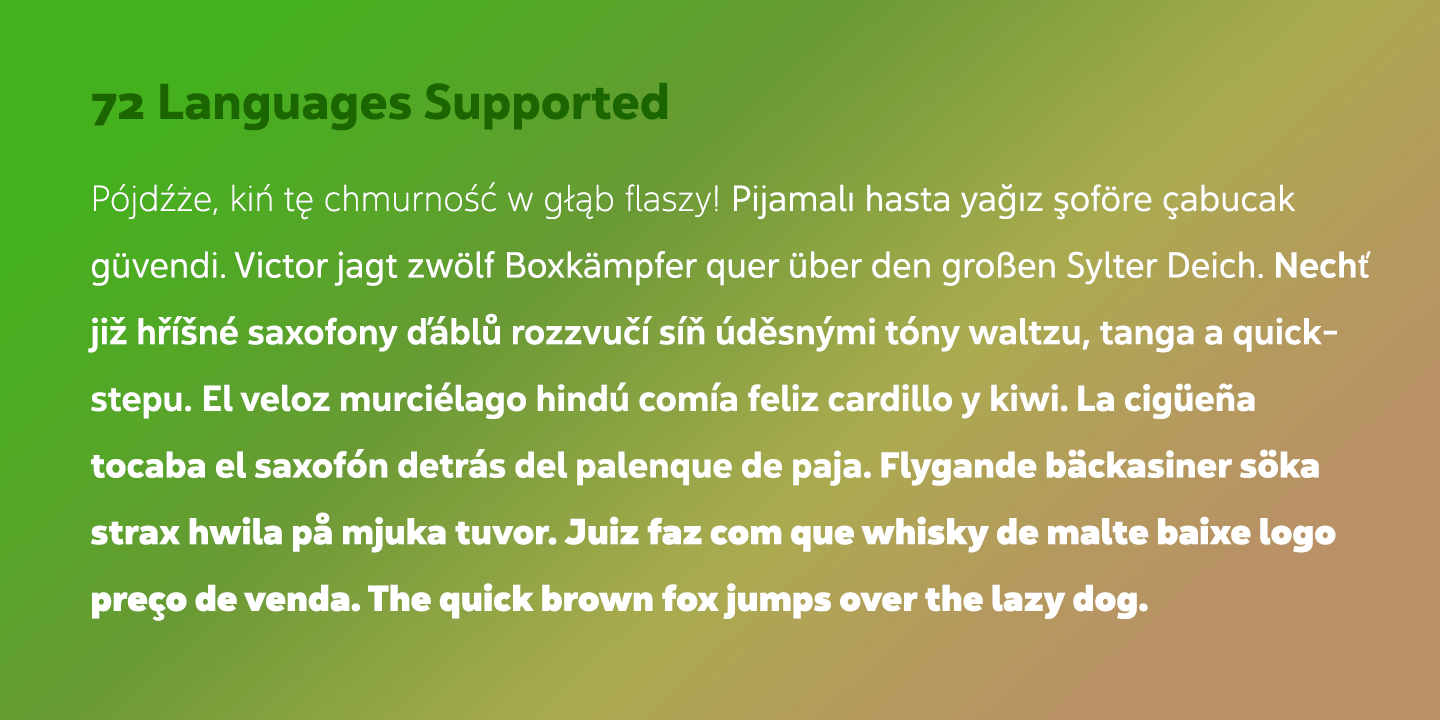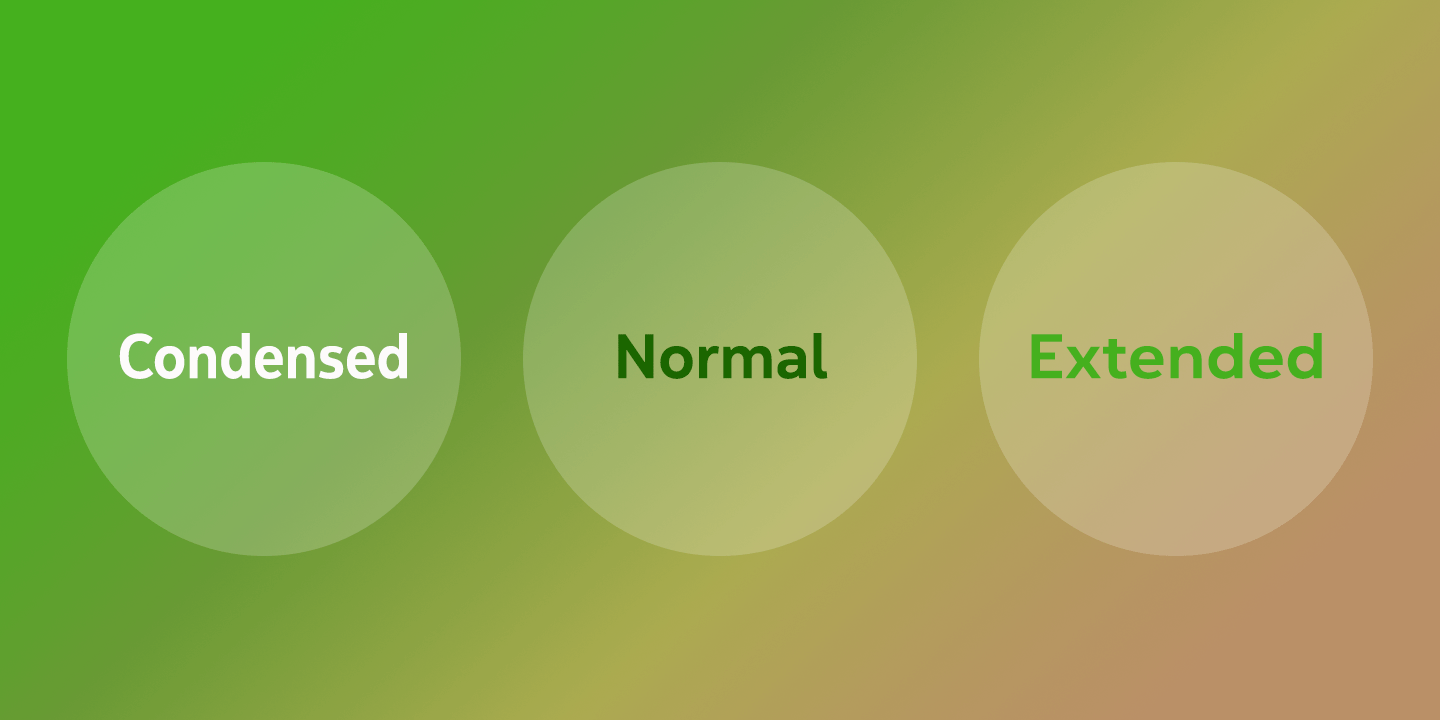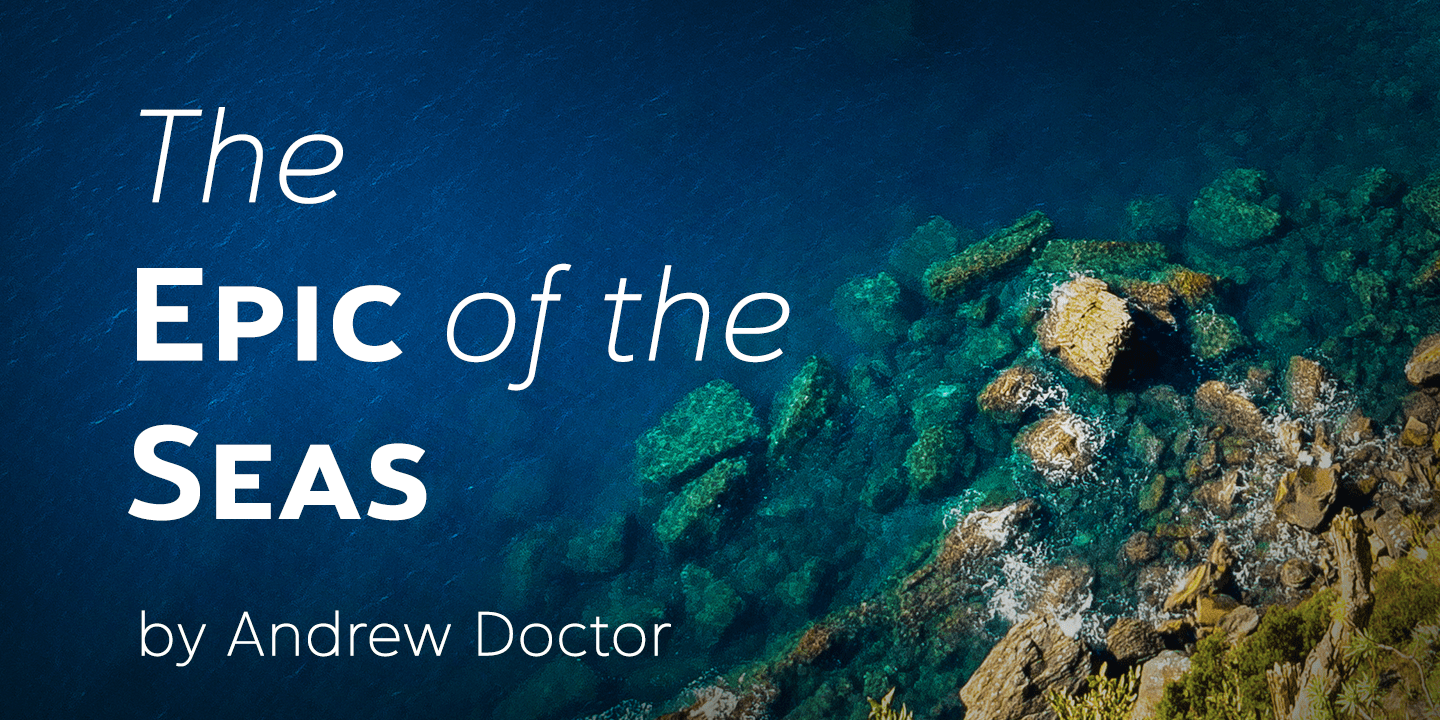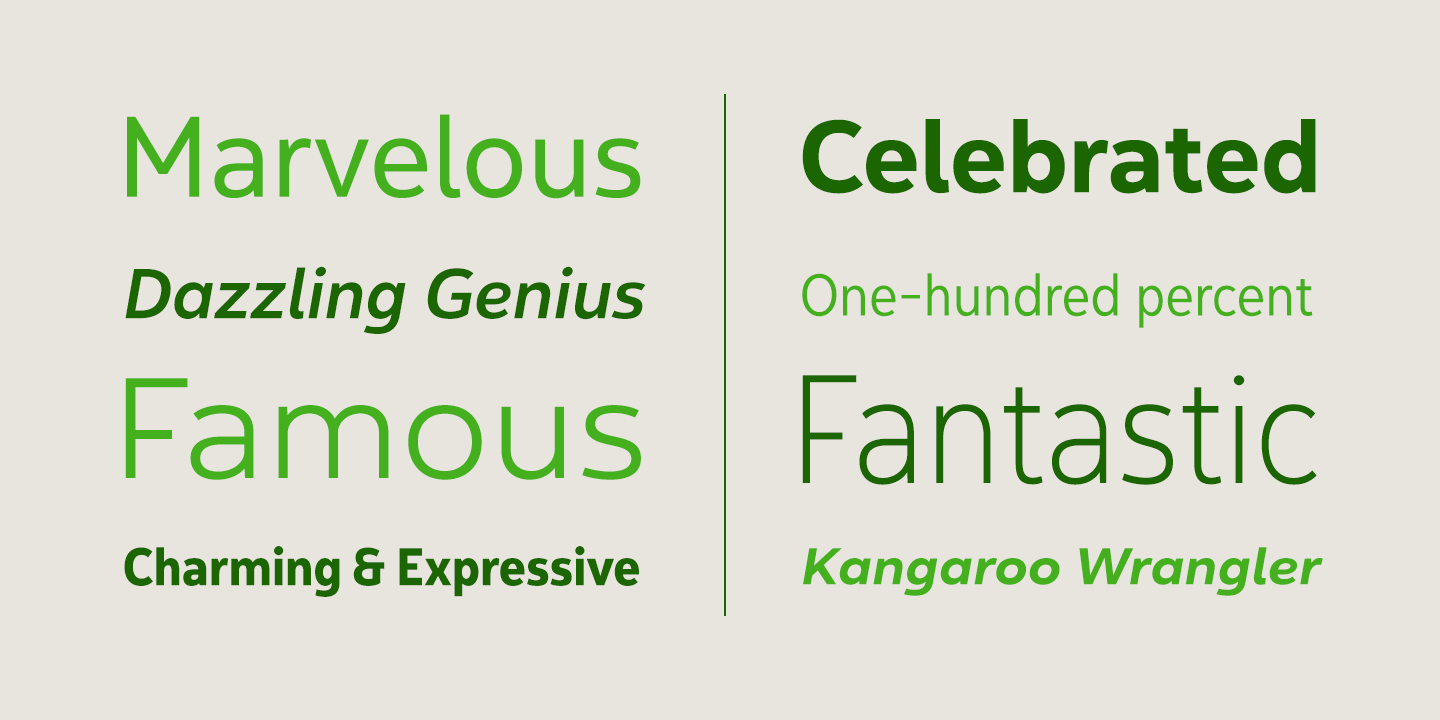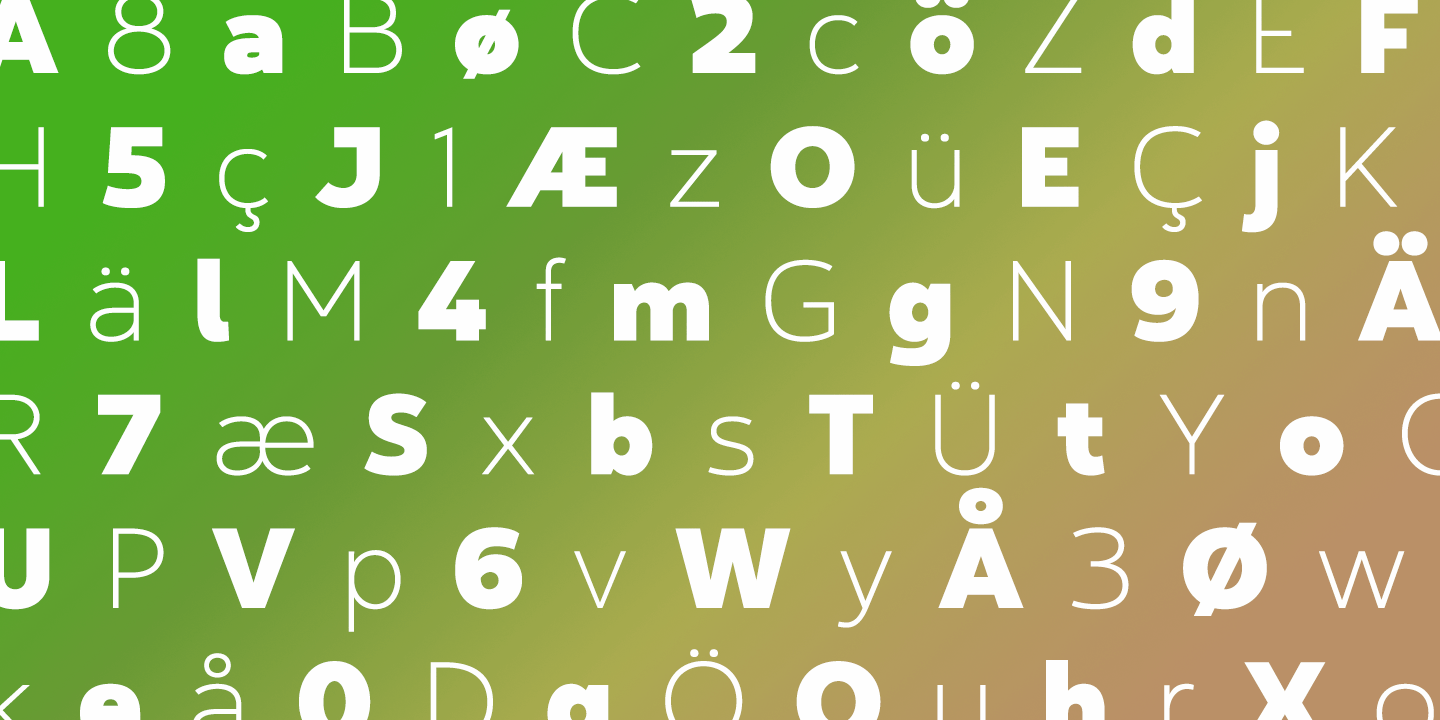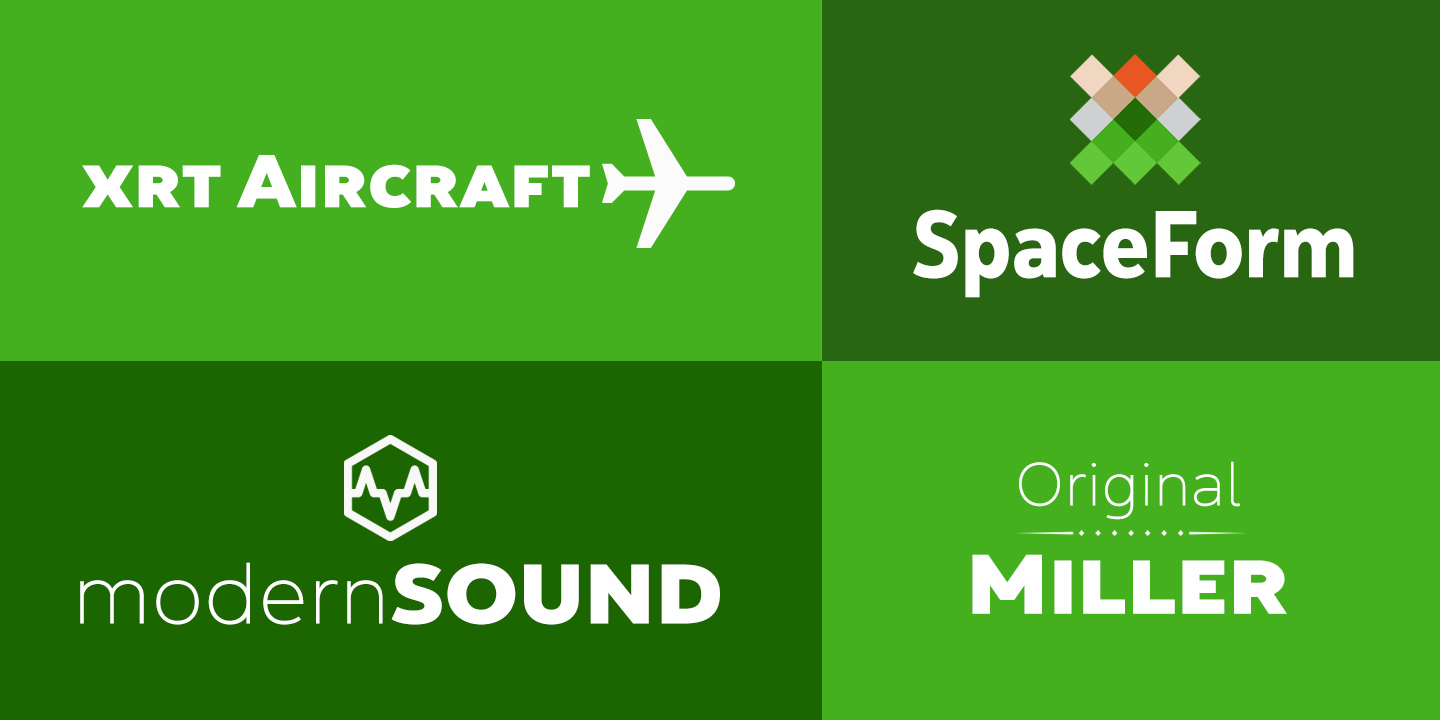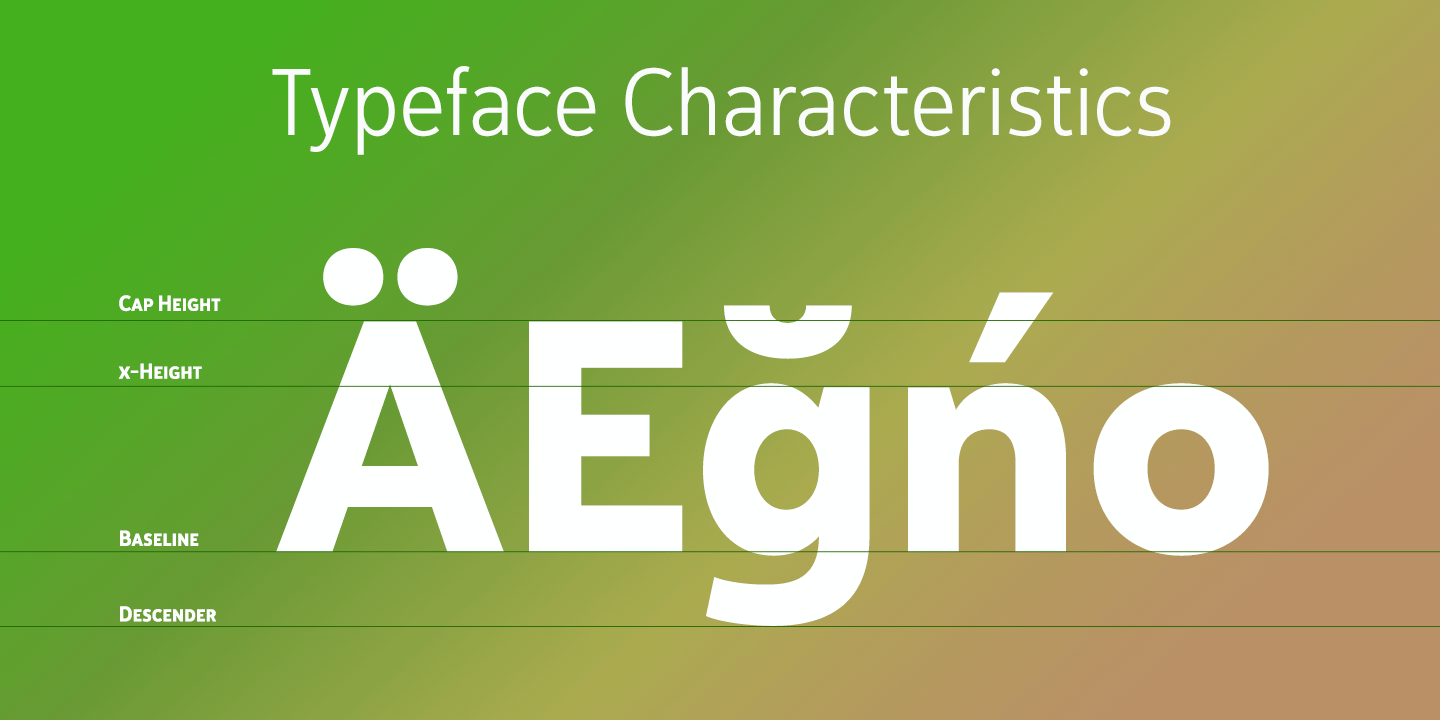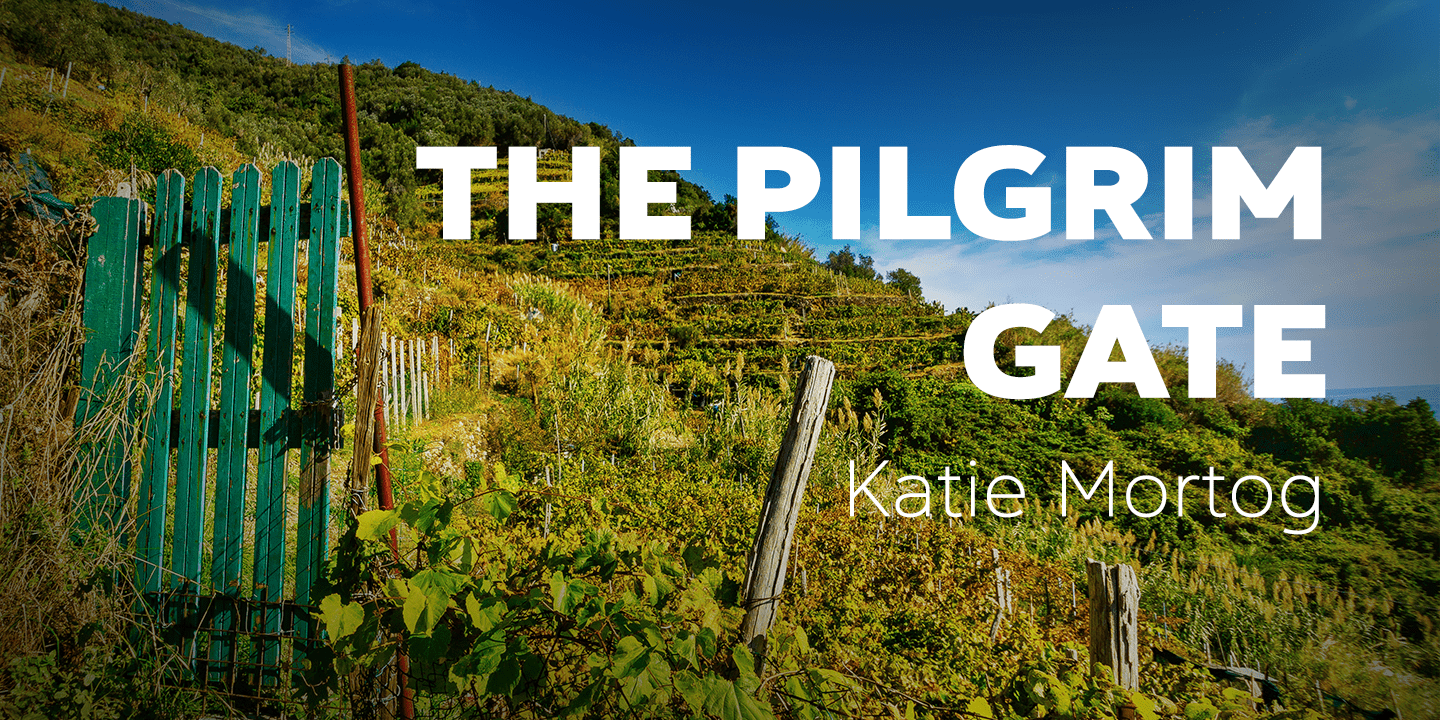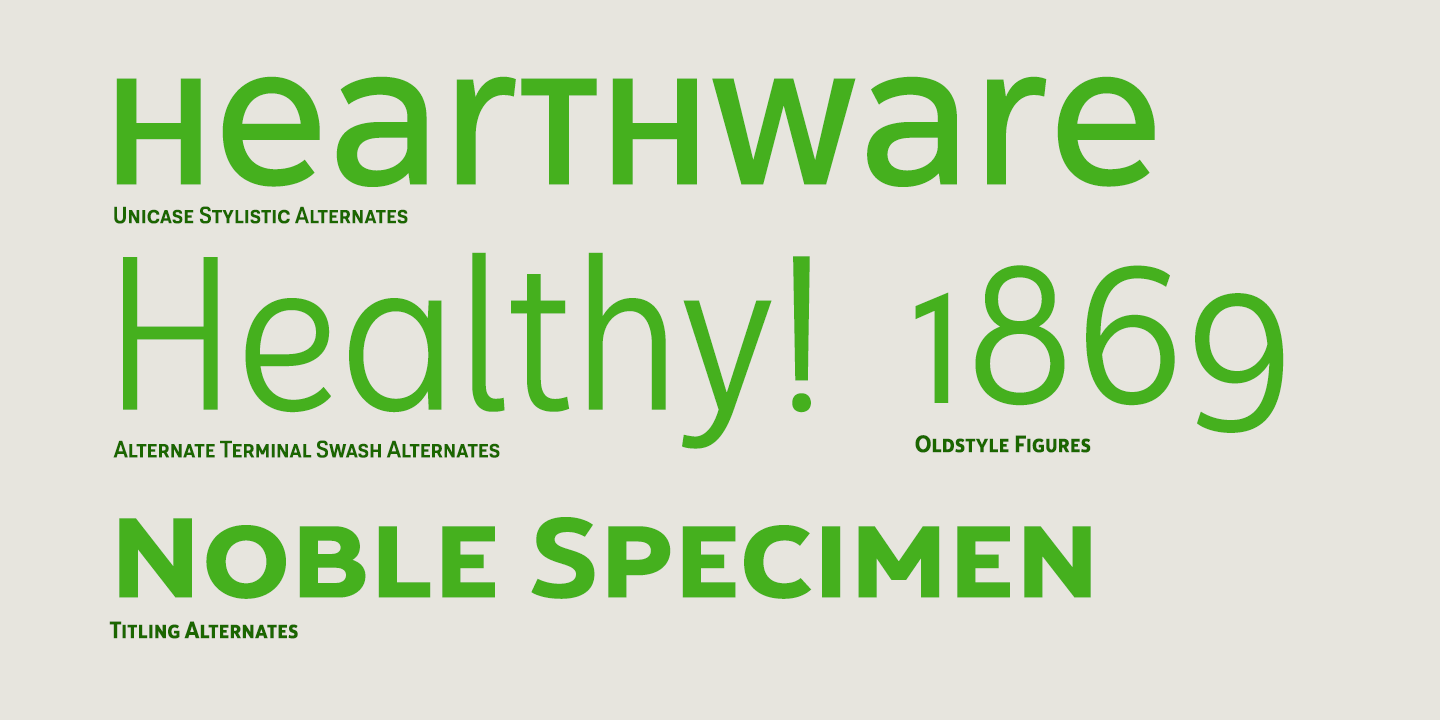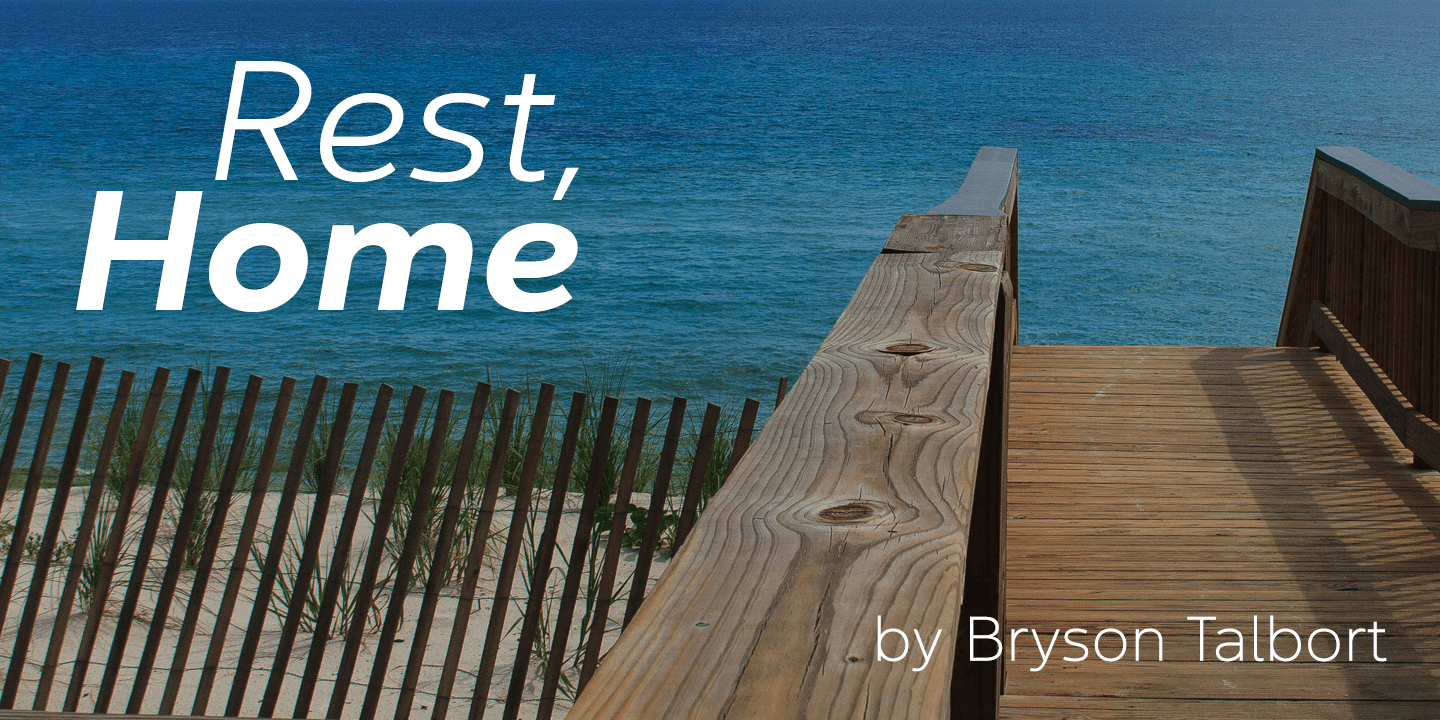
Yorkten
Clean and welcoming, the distinct look of Yorkten is remarkably satisfying to the eye. Straight to the point, Yorkton features a fashionable, geometric composition with angled main stems. There are no fewer than fifty-four fonts in the family, all of which are characterized by one of three widths ? extended, normal or condensed. Each individual subfamily is equipped with eight weights from Thin to Black with respective Italics, giving Yorkten a breathtaking range of fonts to boast.
The greater value for you, though, is its members? ability to work well together. With a deep toolbox of weights and widths to choose from, this family provides you with significant value and a broad number of design solutions, making sure you have the tools you need for each challenge.
So where should you use the font? Jeremy Dooley designed Yorkten's underpinning structure to be compact. Combined with its superior features and terrific legibility, this versatile font can be used effectively for many jobs, whether in print or on screen. Use it freely for e-books and apps. Yorkten is particularly great for headlines, banners, posters, and websites.